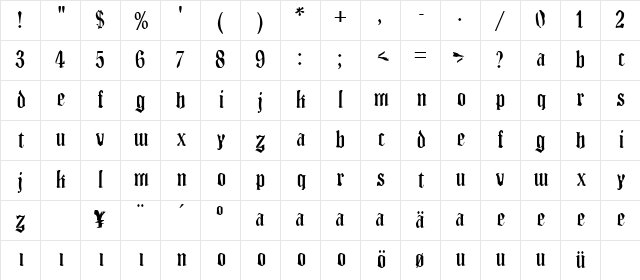
Complete BlendfontsMultikultur Regular glyph index. Displaying only characters natively supported by BlendfontsMultikultur Regular font.
BlendfontsMultikultur is a composed and adaptable typeface that performs quietly and consistently across a wide range of design contexts.